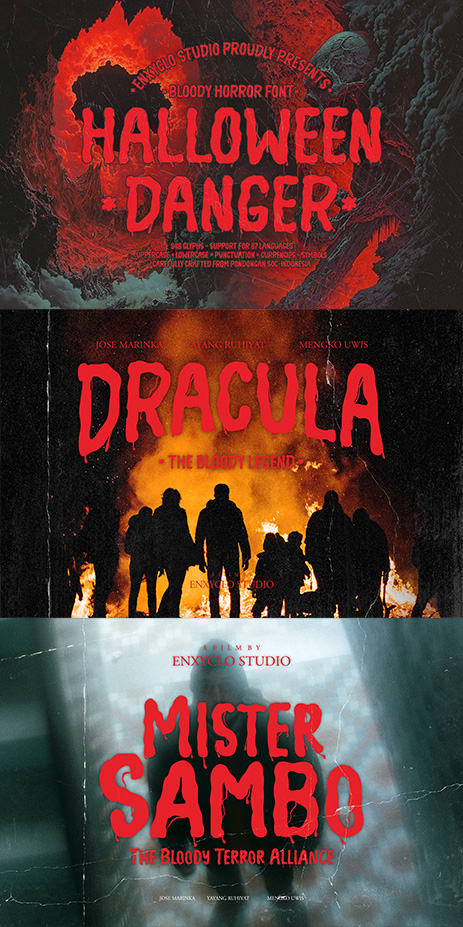
NCL Halloween Danger Font
Designed by Enxyclo Studio
About NCL Halloween Danger
NCL HALLOWEEN DANGER is a rough handwritten bloody horror font with freaky vibes! Masterfully designed to become a true favorite, this font has the potential to bring each of your creative ideas to the highest level! It was purposely crafted to be used in large point sizes, although it doesn’t lose its magic in small point sizes. It is perfect for headline, billboard, magazines, website, titles, poster, branding, t-shirt design, and logos. No matter the topic, this font will be an incredible asset to your fonts’ library, as it has the potential to elevate any creation. With this beautiful font, absolutely you can make your project stand out from the rest. See the previews above to get some inspiration on how to use them.
- Uppercase, Lowercase & Numeral
- Punctuation, Symbol & Currencies